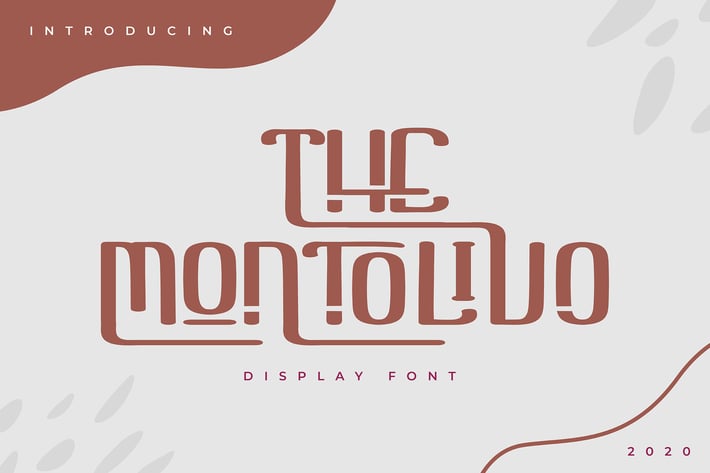
The Montolivo | Display Font
The Montolivo | Display Font with a calligraphy style, So beautiful on invitation like greeting cards, branding materials, business cards, quotes, posters, and more!